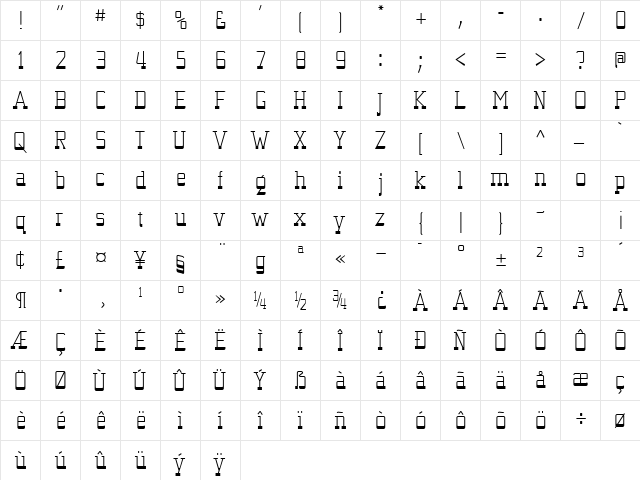
Kwodsity Regular
Design Context for Kwodsity Typeface
Kwodsity offers clean, dependable letterforms without strong stylistic allegiance, making it a practical choice for designers who need flexibility.